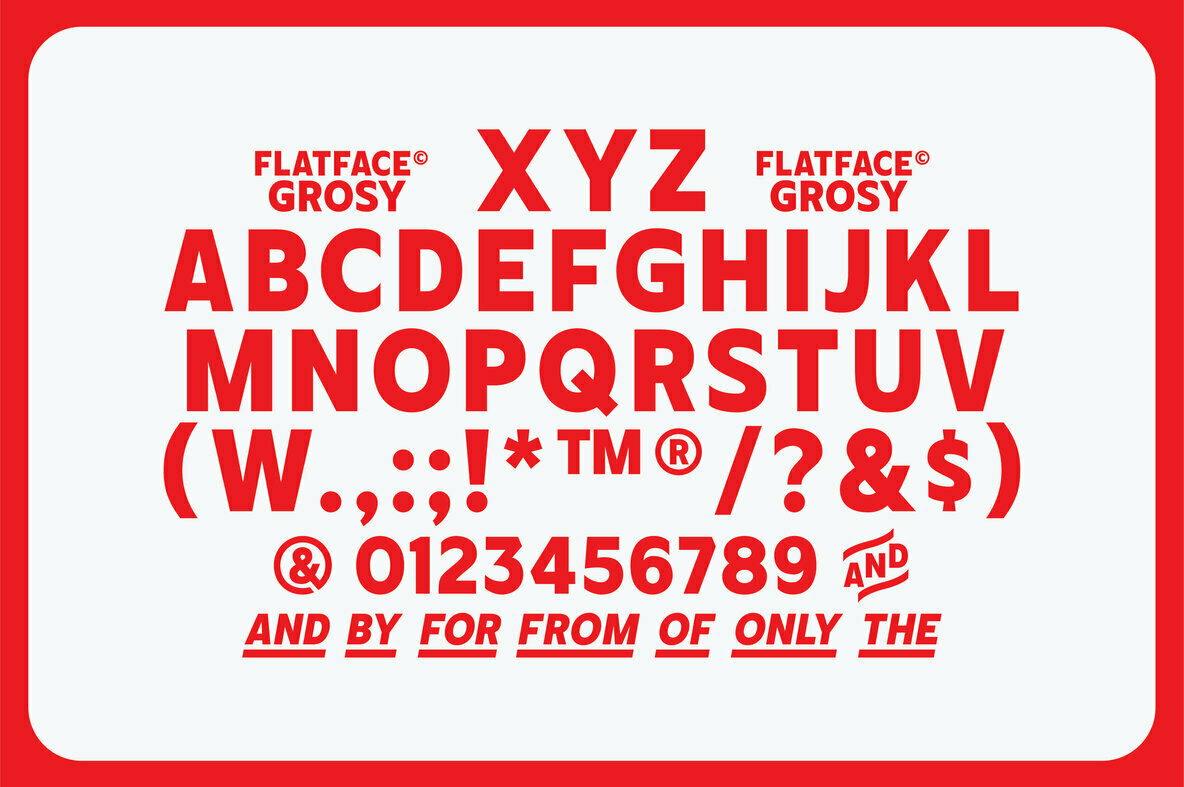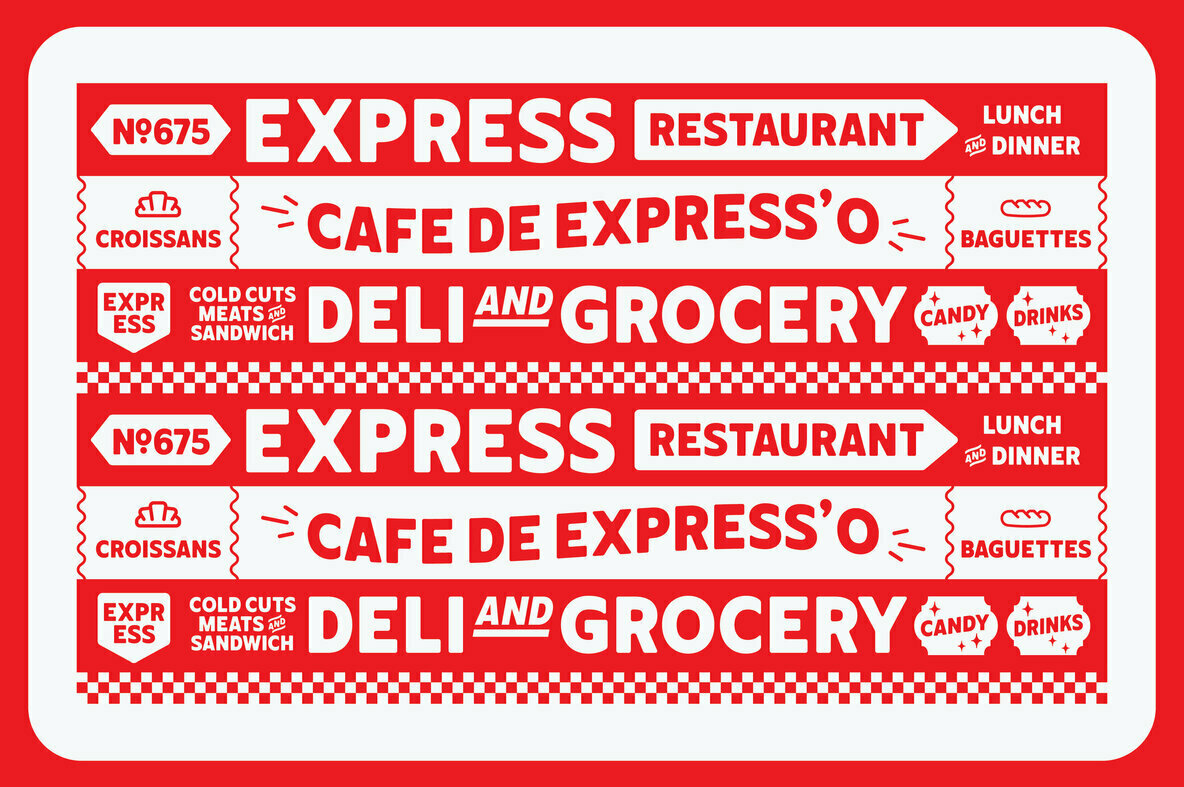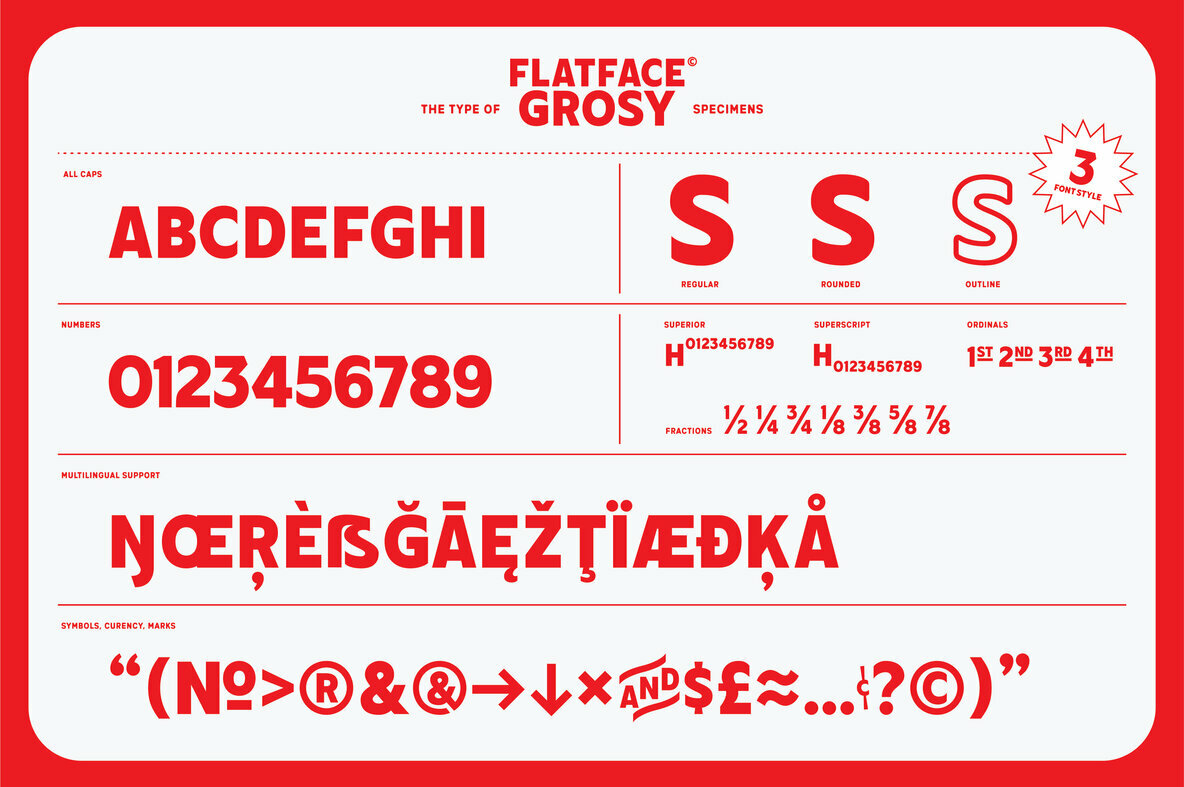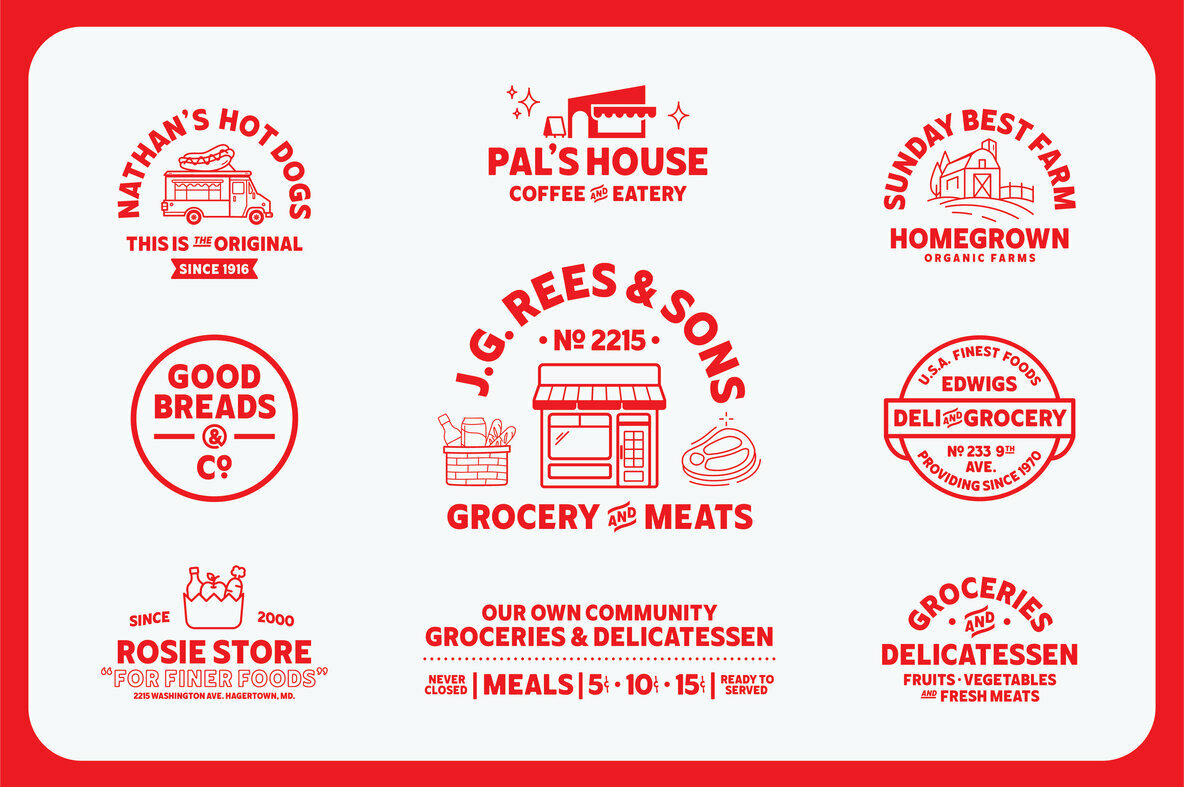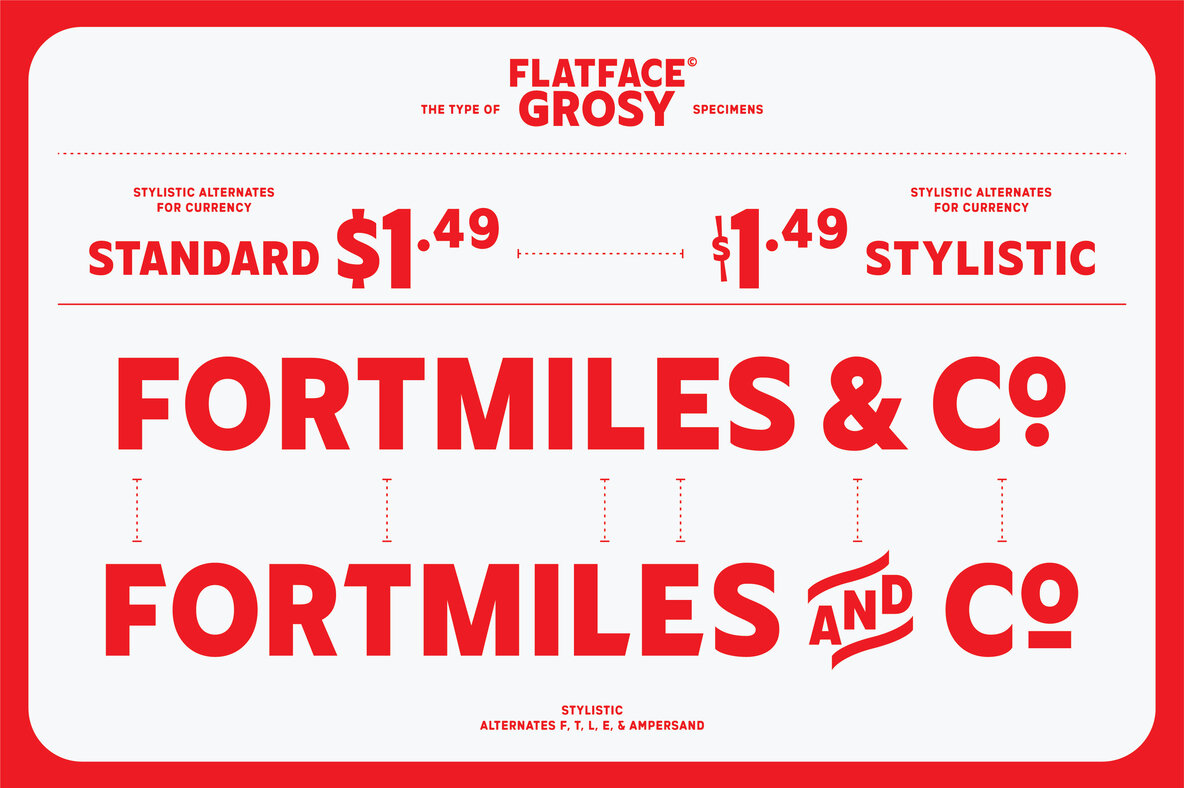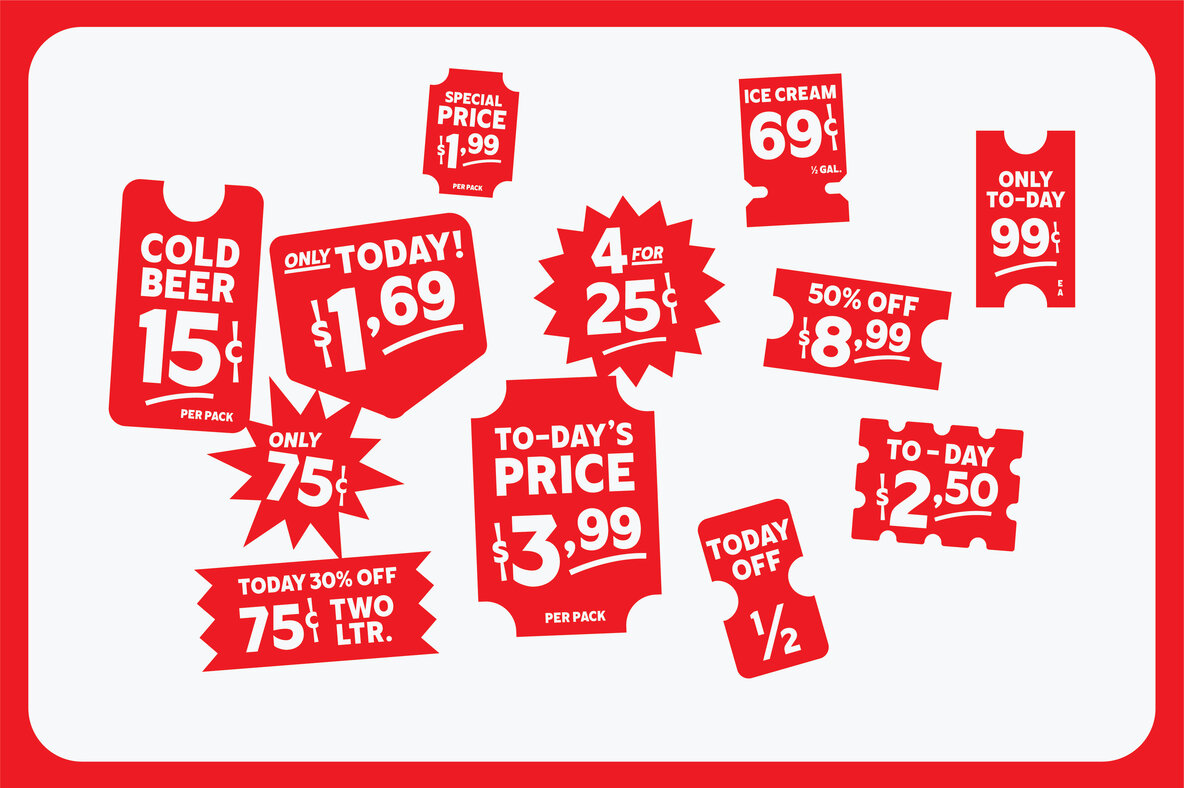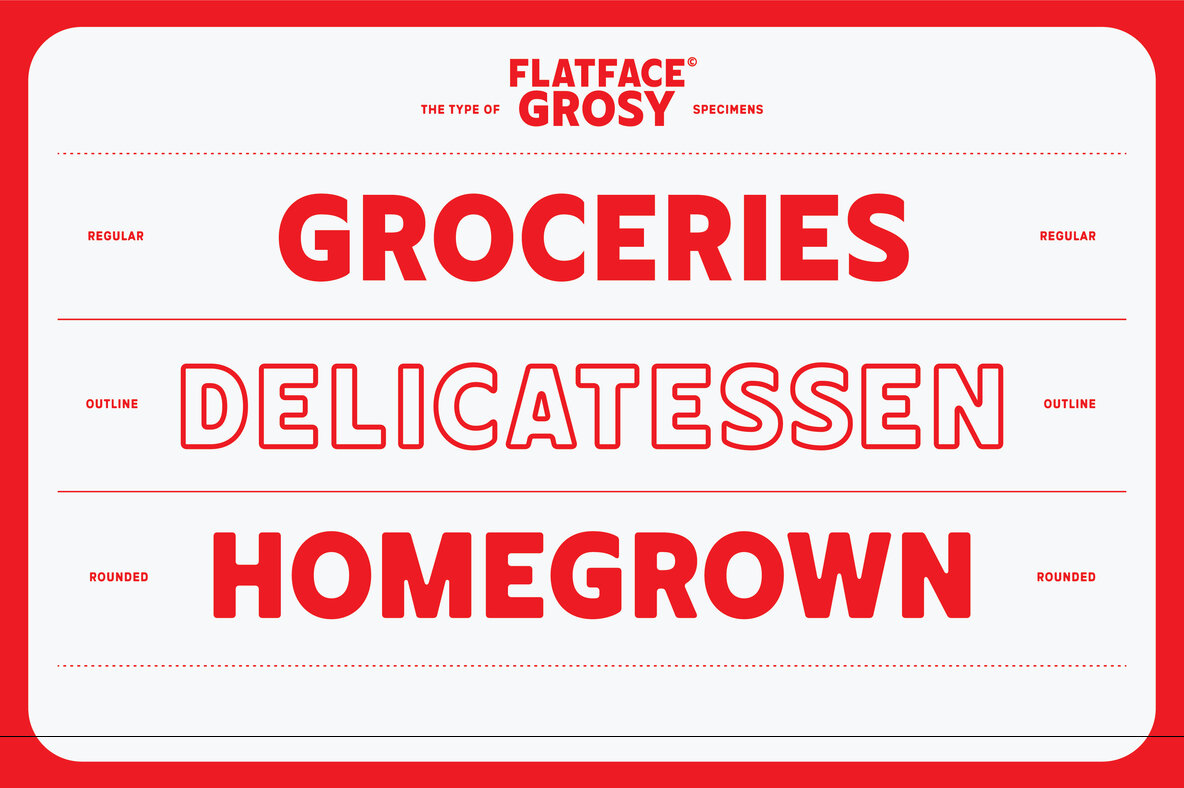
Flatface Grosy Font
Flatface Grosy Regular
Flatface Grosy Rounded
Flatface Grosy Outline
Delight in the charm of Flatface Grosy, a sans serif display font drawing influence from the iconic deli and grocery signage of the 1960s and 70s. This typeface offers a playful nod to retro aesthetics while boasting modern conveniences such as multi-lingual support and OpenType features. Bring an element of vintage fun to any project with Flatface Grosy, and experience its capability to enliven your creative endeavors.Flatface Grosy: Nostalgia-Inspired Sans Serif